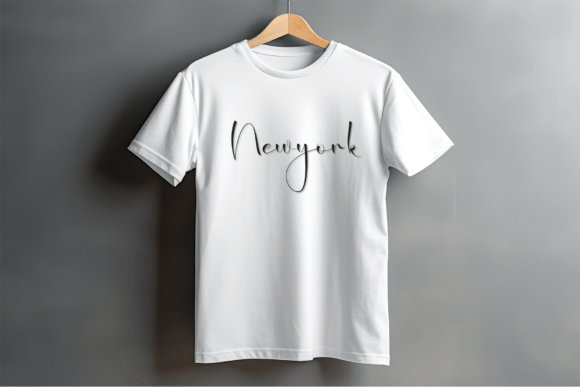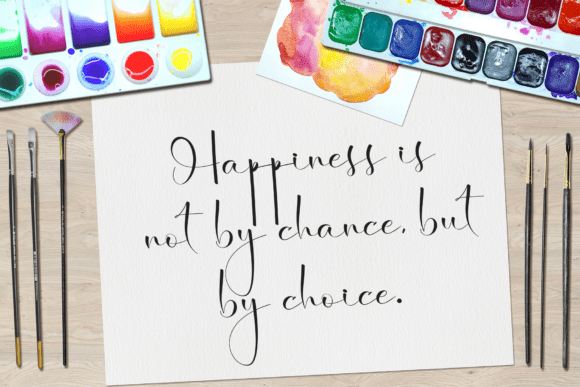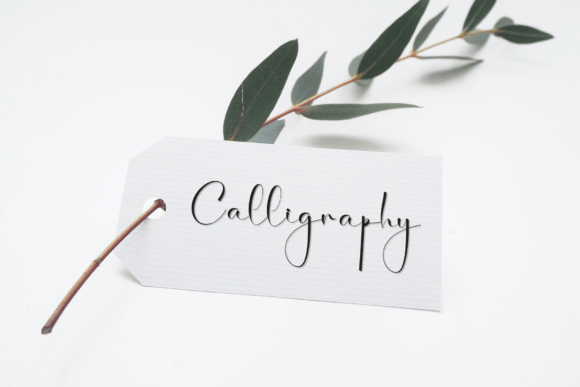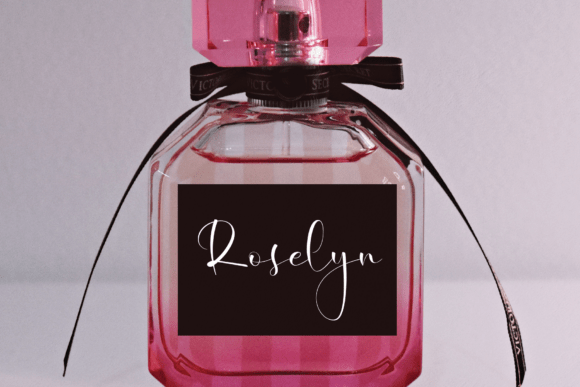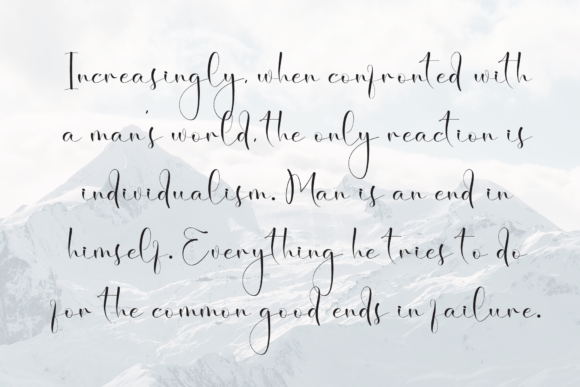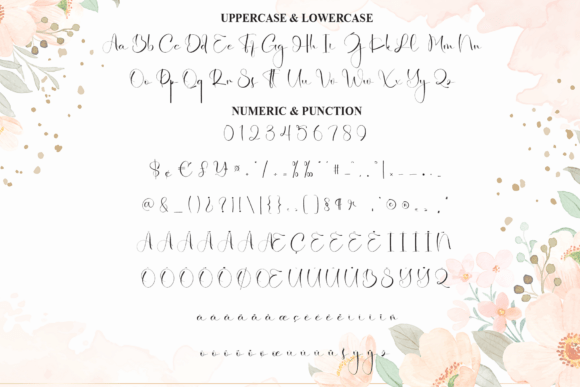
Discover the Elegance of Angelina Font: A Stylish Script Font for Modern Designs
In the world of typography, few fonts manage to capture the essence of elegance and contemporary charm as effectively as Angelina. This stylish script font is a masterpiece of modern design, blending the fluidity of hand-drawn calligraphy with the precision of digital craftsmanship. Whether you’re a designer looking for the perfect font for your next project or a crafter seeking to add a touch of sophistication to your creations, Angelina is an exceptional choice.
The Characteristics of Angelina Font
Angelina is distinguished by its graceful strokes, fluid curves, and meticulously designed letterforms. Each character is crafted to contribute to the overall harmony and beauty of the text, making it a pleasure to read and a delight to look at. The font’s natural flow and polished details ensure that it brings a refined and sophisticated touch to any design.
Versatility and Application
One of the key advantages of Angelina is its versatility. This font is not limited to a specific type of project; rather, it can be used across a wide range of applications. Here are some of the areas where Angelina truly shines:
- Logos: For businesses and brands looking to establish a sophisticated and elegant identity, Angelina can be used to create memorable and impactful logos.
- Invitations: Whether it’s a wedding invitation, a birthday party invite, or any other special occasion, Angelina adds a touch of class and elegance.
- Packaging: For product packaging that stands out on the shelves, Angelina can be used to create labels and product names that exude luxury and quality.
- Social Media Graphics: Enhance your social media presence with stylish graphics that incorporate Angelina, making your posts and stories more engaging and visually appealing.
Why Choose Angelina Font?
Choosing Angelina for your design projects comes with several benefits:
- Elegance: Angelina brings an unmatched level of elegance to any design, making it perfect for projects that require a sophisticated look.
- Readability: Despite its elegant and cursive nature, Angelina maintains a high level of readability, ensuring that your message is conveyed clearly.
- Uniqueness: With its modern twist on traditional calligraphy, Angelina stands out from more common fonts, giving your designs a unique edge.
- Adaptability: Angelina can be used in various sizes and colors, making it adaptable to different design requirements and styles.
Tips for Using Angelina Font Effectively
To maximize the impact of Angelina in your designs, consider the following tips:
- Pair with Complementary Fonts: When combining Angelina with other fonts, choose simple and clean fonts that complement its elegance without competing with it.
- Adjust Letter Spacing: For optimal readability, especially in longer texts, adjust the letter spacing to ensure a comfortable and harmonious look.
- Experiment with Colors: While Angelina looks stunning in classic black and white, don’t be afraid to experiment with colors that match the mood and theme of your design.
Angelina is more than just a font; it’s a design element that can elevate your projects to new heights of elegance and sophistication. With its graceful strokes, fluid curves, and versatile application, it’s an ideal choice for designers and crafters looking to add a touch of modern charm to their work. Whether you’re creating a logo, invitation, packaging, or social media graphics, Angelina is sure to deliver both versatility and visual appeal, making it a valuable addition to your typographic arsenal.